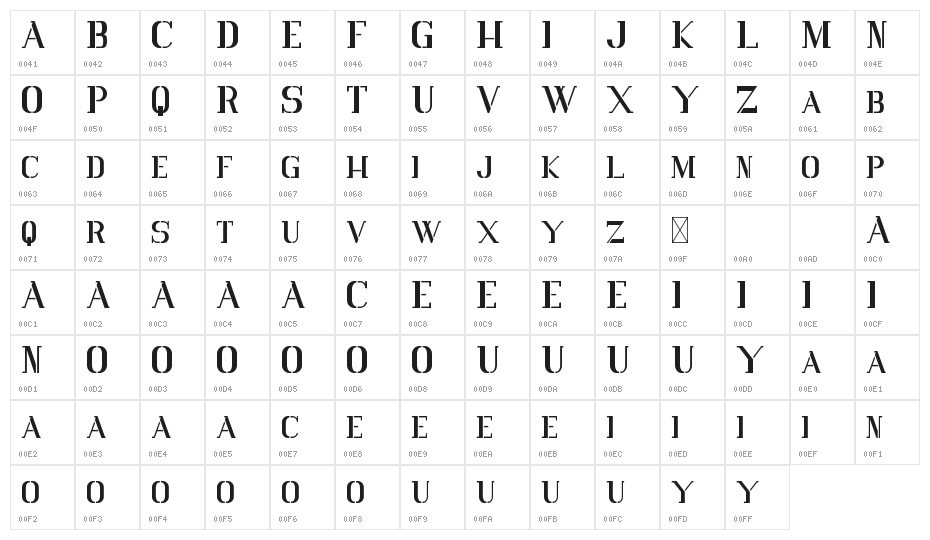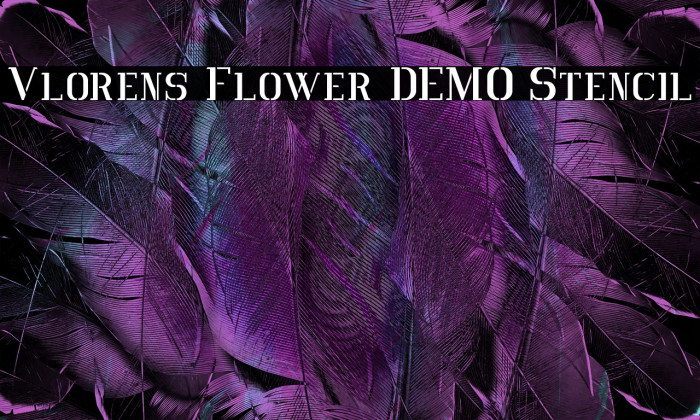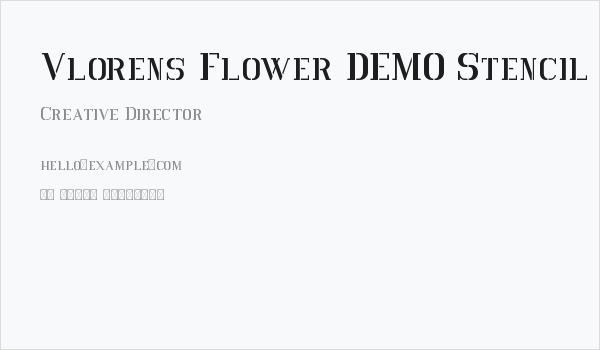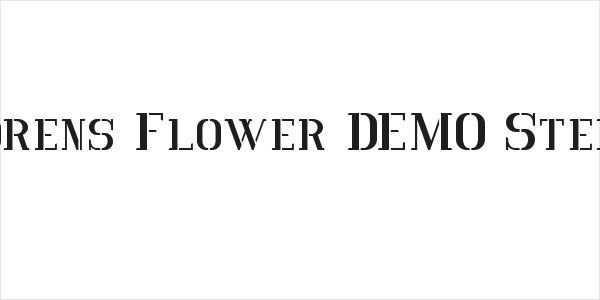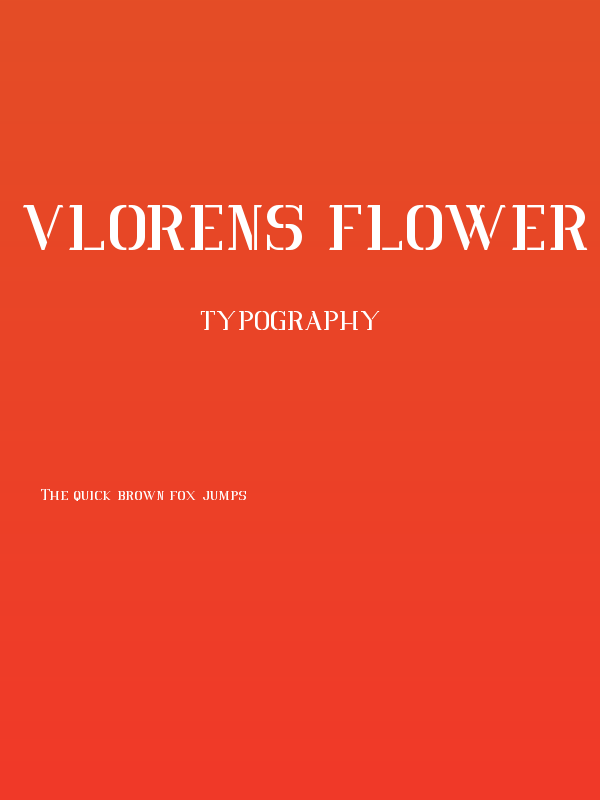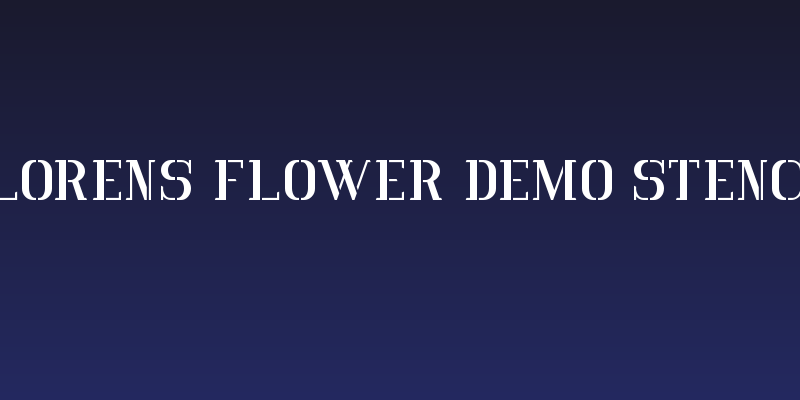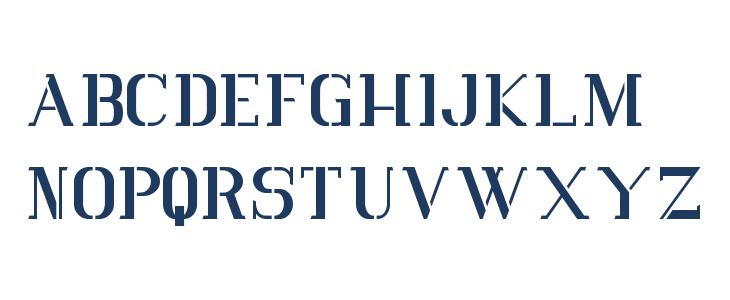
Vlorens Flower DEMO Stencil Font
Vlorens Flower DEMO Stencil Description
This font features a bold and striking stencil design, characterized by its geometric and angular cuts within each letterform. The uppercase letters are distinct with sharp edges and a modern aesthetic, making it ideal for attention-grabbing headlines and titles. The stencil gaps add a unique touch, providing a sense of industrial and contemporary style. The font maintains a consistent weight throughout, ensuring readability while still offering a decorative flair. Its design is both functional and artistic, suitable for projects that require a bold statement.